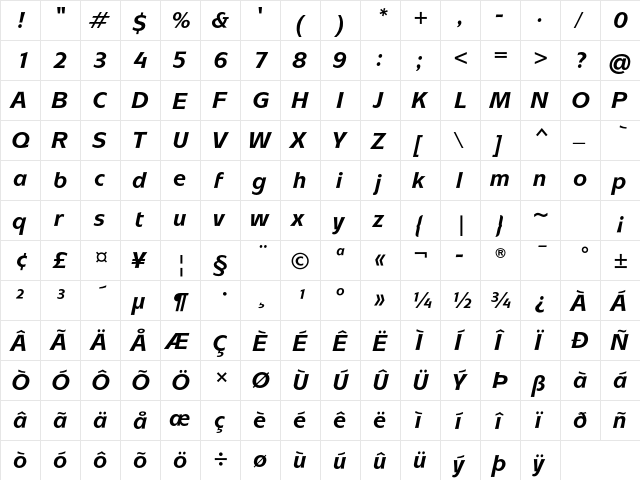
Mixage ITC Std Bold Italic
| Designer | Aldo Novarese |
Design Context for Mixage ITC Std Typeface
Mixage ITC Std offers clean, dependable letterforms without strong stylistic allegiance, making it a practical choice for designers who need flexibility. Its italic angle brings a sense of urgency and motion to the letterforms. The heavy weight commands attention and anchors typographic hierarchies.
Pro Tip: Use Mixage ITC Std for emphasis, pull quotes, and subheadings where its slanted energy can add rhythm to the layout.